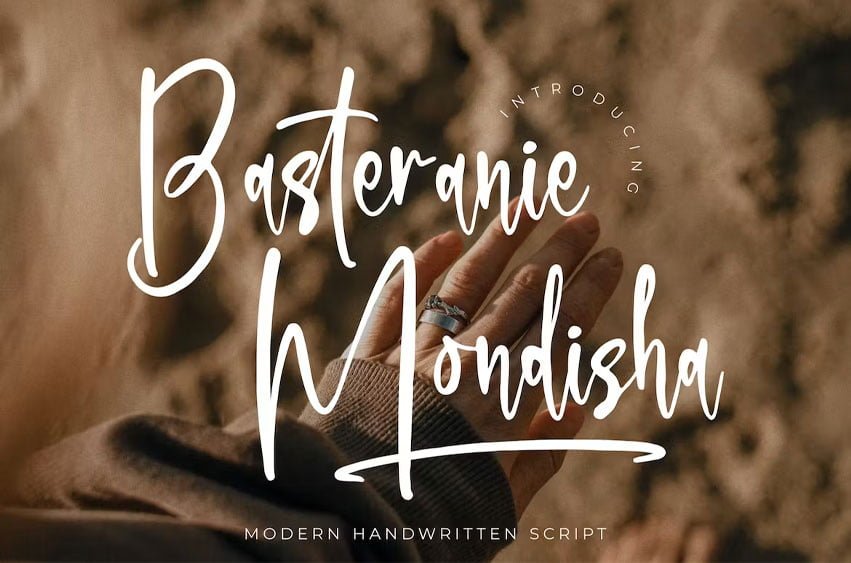
Basteranie Mondisha Font is suitable to complement your digital and printed creative products. This font is perfect for posters, social media posts, branding, personal projects, etc.